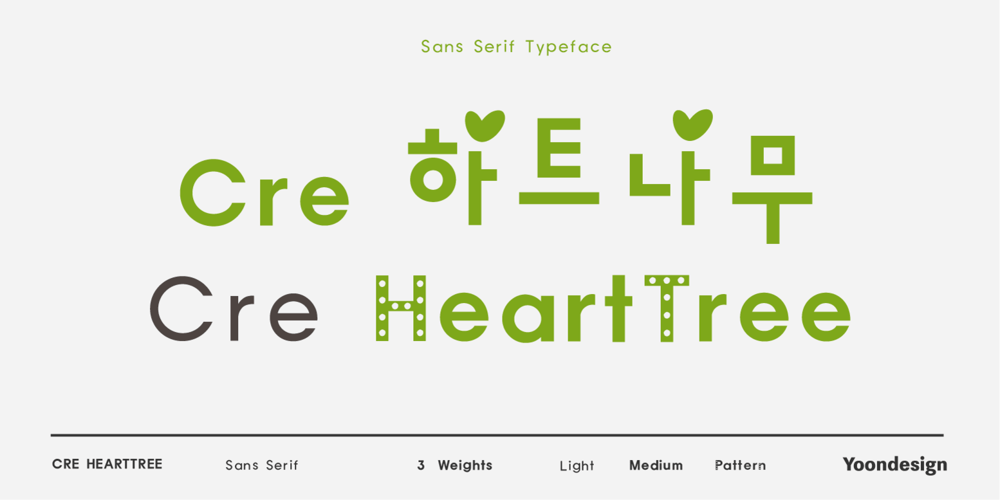
Cre HeartTree
Cre HeartTree font
Cre HeartTree Font Family was designed by Yoon Design Team and published by Yoon Design. Cre HeartTree contains 3 styles and family package options. Cre HeartTree Family is a lovable-font, a san-serif typeface with all letters and numbers interspersed with hearts for a fun and joyful feel. Especially some vowel signs are decorated with heart shapes for a lively feeling of joy. This font family has 3 styles and is ideal for cartoons, greeting cards and children’s books, as it has a happy feel to it.